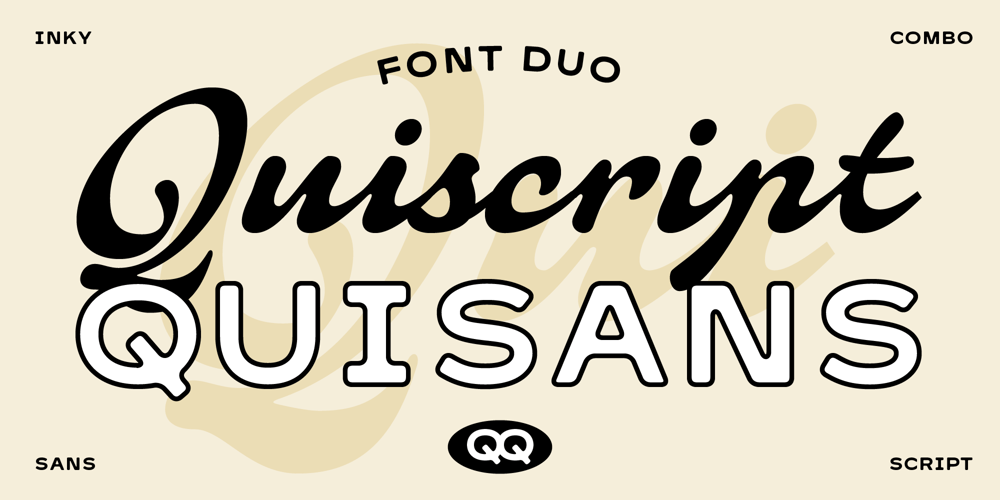
Qui Font Family was designed by Adam Fathoni Haris and published by Adam Fathony. Qui contains 3 styles and family package options. Introducing Quiscript and Quisans an Inky Font Duo – a timeless pairing of elegance and versatility. This duo features a beautifully crafted script font alongside an all-caps sans serif, each exuding a classic, soft, and vintage charm. The script font flows with inky, hand-drawn strokes, while the sans serif boasts bold, clean lines, enhanced with an extra outline option for added depth and sophistication.Perfect for a wide range of design projects, from logos and branding to packaging and invitations, this font duo adapts effortlessly, adding a touch of nostalgia and refinement to any creation. Whether you’re aiming for a vintage aesthetic or a modern twist on classic styles, the Inky Vintage Font Duo is your go-to choice for an authentic and polished look.